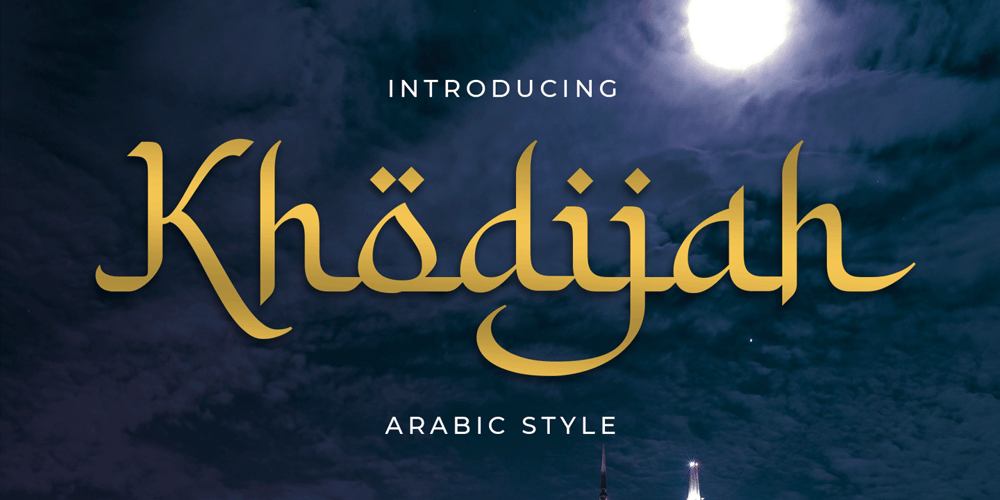
Khodijah
Khodijah font
Khodijah Font Family was designed by Ahmad Ramzi Fahruddin and published by Arterfak Project. Khodijah contains 1 styles and family package options. Introducing Khodijah, brand new display font in Arabic style. Designed with a digital flat-pen and gothic typography technique which gives the elegant looks of the letters.This font also adopted from the Hijaiyah letters that highly usable for any Islamic or Mid-east content. Perfect for Book covers, poster, flyer, banner, t-shirt, logo, branding, and other advertising needs. Khodijah has OpenType features such as alternates, swashes, and ligatures that you can access them from the software which has an open-type panel.Happy designing!Ramz.